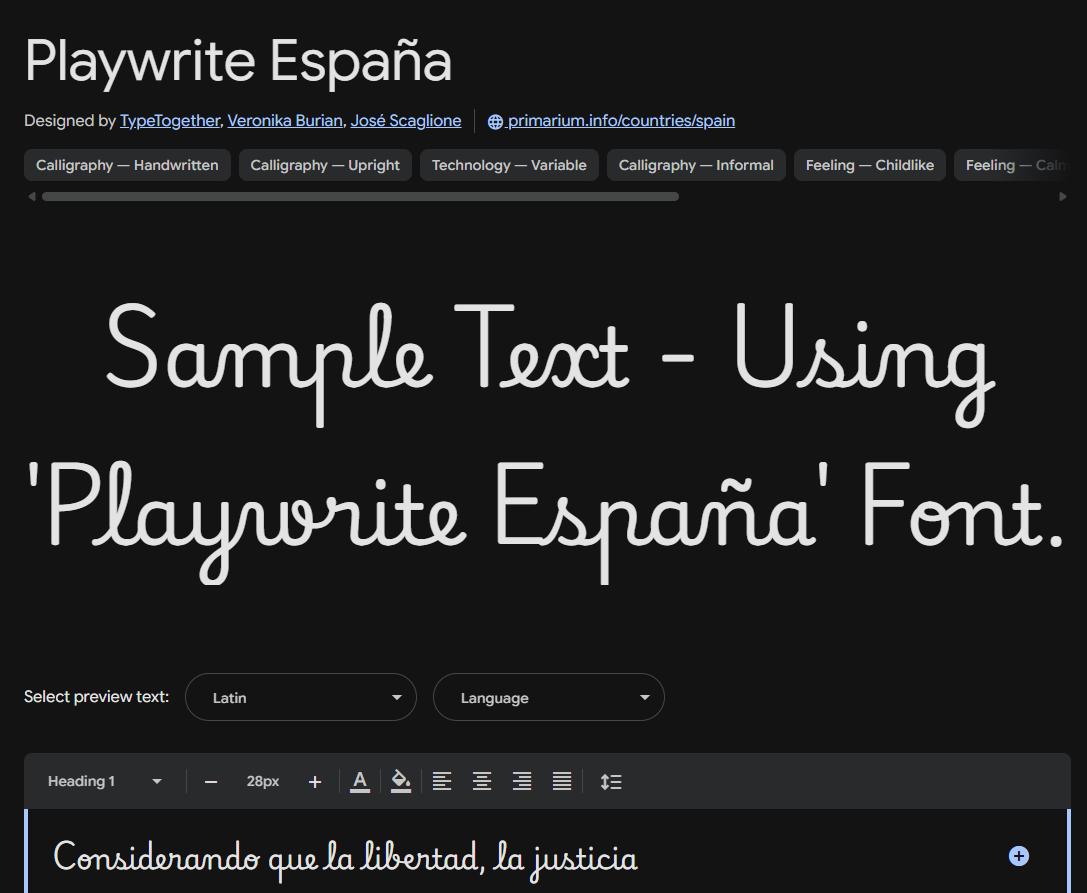
Playwrite España, meticulously engineered by Veronika Burian and José Scaglione of TypeTogether, functions as a high-performance pedagogical tool that digitizes the nuanced ductus of Spanish primary school handwriting through a modern variable font framework. Utilizing a single axis for weight interpolation, the typeface maintains rigorous stroke contrast and structural consistency across its design space, ensuring that the rhythmic joins and regional letterform specificities required for literacy development remain tactually coherent. By integrating sophisticated OpenType glyph substitution with variable technology, Playwrite España bridges the gap between traditional penmanship and fluid digital rendering, offering a semantically rich typographic solution that optimizes legibility for early learners while adhering to the technical standards of contemporary screen-based environments.
The Playwrite España font family represents a sophisticated fusion of pedagogical utility and digital craftsmanship, functioning as a variable font that captures the rhythmic essence of Spanish school script through an upright, informal calligraphic lens. Characterized by its handcrafted, handwritten skeletons and rugged yet calm stroke terminals, this typeface evokes a vintage, childlike nostalgia while maintaining the technical precision of modern glyph engineering. Its playful and happy aesthetic is meticulously balanced with a high degree of legibility, utilizing variable technology to allow for fluid adjustments across a weight axis, thus offering a unique perspective on how traditional informal calligraphic forms can be translated into a semantic-rich, informative design tool. By merging the tactile feeling of a humanistic script with the versatility of the variable format, Playwrite España serves as an essential typographic bridge between the carefree innocence of early education and the robust requirements of contemporary digital interfaces.
Playwrite España, a sophisticated pedagogical script engineered by TypeTogether's Veronika Burian and José Scaglione, serves a specific educational mandate that renders it fundamentally unsuitable for high-stakes corporate environments, financial data visualization, or accessibility-critical UI/UX design where neutral legibility is paramount. Given its roots in regional primary school penmanship standards, the typeface's inherent cursivity and single-axis variability-designed to modulate the transition from isolated to joined glyphs-introduce a rhythmic complexity and character-specific stroke modulation that can increase cognitive load in dense information architectures. In professional sectors such as legal documentation or medical labeling, the font's specialized x-height ratios and ligature-heavy construction lack the clinical precision of geometric grotesques, potentially obscuring micro-scale readability; furthermore, its semantic association with the developmental learning process makes it stylistically incongruous for luxury branding or minimalist industrial aesthetics that demand the rigid structural integrity of high-contrast serifs or sterile sans-serifs.
Playwrite España is ideal for educational materials, personalized invitations, and creative storytelling projects that require an authentic handwritten feel. Its design follows the Spanish primary education standards for cursive, making it technically proficient for teaching joined-up handwriting stroke sequences to young learners.
While charming for short passages, using this font for extensive body text can lead to visual fatigue due to its intricate cursive connections. The font's variable stroke width and high frequency of ascenders and descenders can disrupt rhythmic reading flow when set at paragraph densities below 12pt.
The font is engineered to mimic natural handwriting through intelligent character joins that adapt dynamically as the user types. Using OpenType features, the font manages context-sensitive glyph substitutions to ensure that exit strokes and entry points maintain mathematical continuity between letterforms.
Clean, geometric sans-serifs provide a balanced contrast, allowing the expressive nature of the script to stand out without visual competition. Pairing with a low-contrast grotesque like Inter or Roboto creates a functional hierarchy where the script functions as a display accent against a stable typographic baseline.
This typeface was specifically developed to support literacy development by mirroring the handwriting styles taught in Spanish schools. By adhering to the traditional "pauta" grid systems used in Spain, the font provides a 1:1 visual match for the motor skill patterns required in early childhood pedagogy.
Playwrite España excels in large-scale displays where its detailed curves and organic textures can be fully appreciated by the viewer. At larger point sizes, the vector precision of its outlines remains smooth, preserving the organic ink-on-paper aesthetic without revealing interpolation artifacts.
The Playwrite series is released as variable fonts, allowing designers to fine-tune the thickness of the characters to suit specific design needs across different media. The availability of a weight axis typically ranging from 100 to 400 allows for precise control over the visual darkness of the text on various screen resolutions.
It is highly effective for lifestyle brands, artisanal products, or education-focused companies seeking a humanistic and approachable identity. From a technical standpoint, the font's unique regional cursive style offers a distinct geographic-specific brand signal that resonates specifically with Mediterranean market aesthetics.
The font maintains strong visibility on high-contrast backgrounds, provided the weight is adjusted to prevent the thin connections from disappearing. High luminance contrast can cause "halation" effects on thin strokes, so applying a slight weight increase via the variable axis is recommended to preserve legibility in dark mode environments.
While suitable for headers or decorative elements, it is generally too ornate for functional UI components like buttons or navigation menus. The script's high x-height and long extenders often exceed standard line-height configurations, potentially causing glyph clipping issues within constrained mobile container divs.